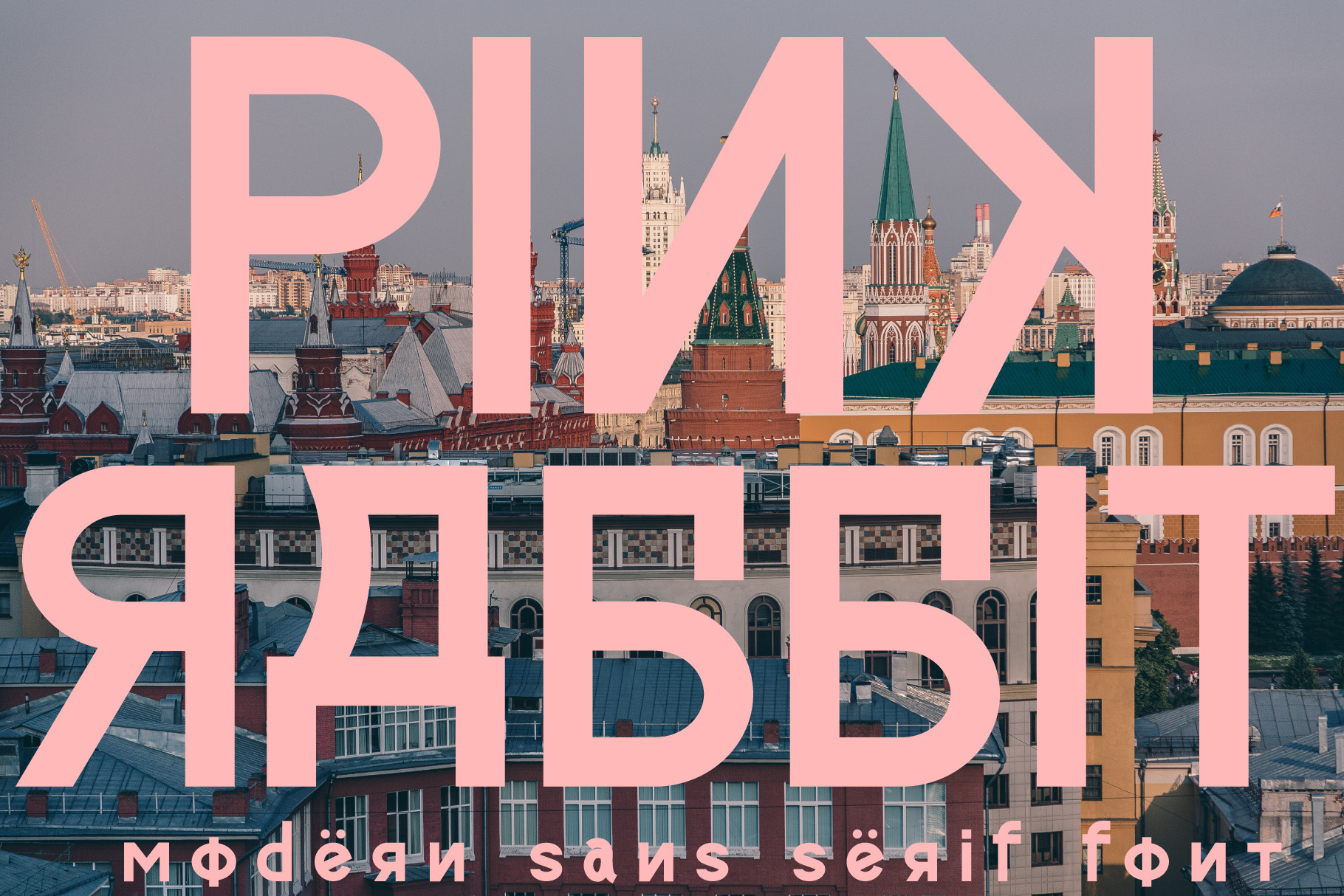
Pinkrabbit - Non Western Font
Introducing Pinkrabbit, a unique with Russian style non western font. So perfect for you who needs a typeface for logo designs, magazine, social media, brochure, and many more.